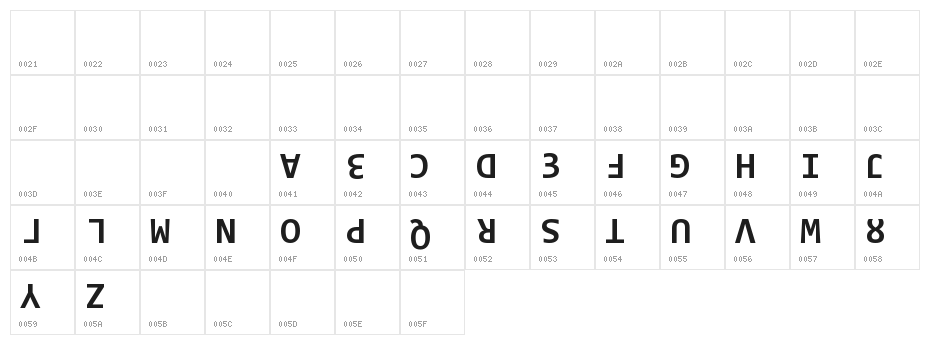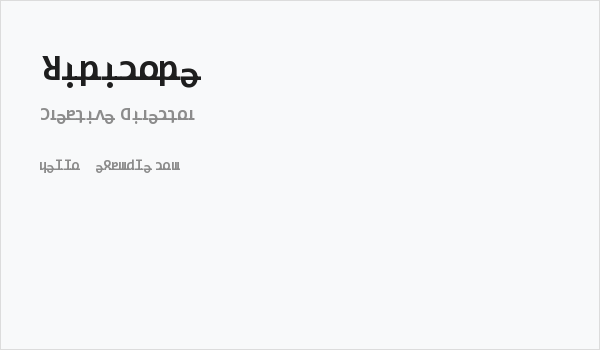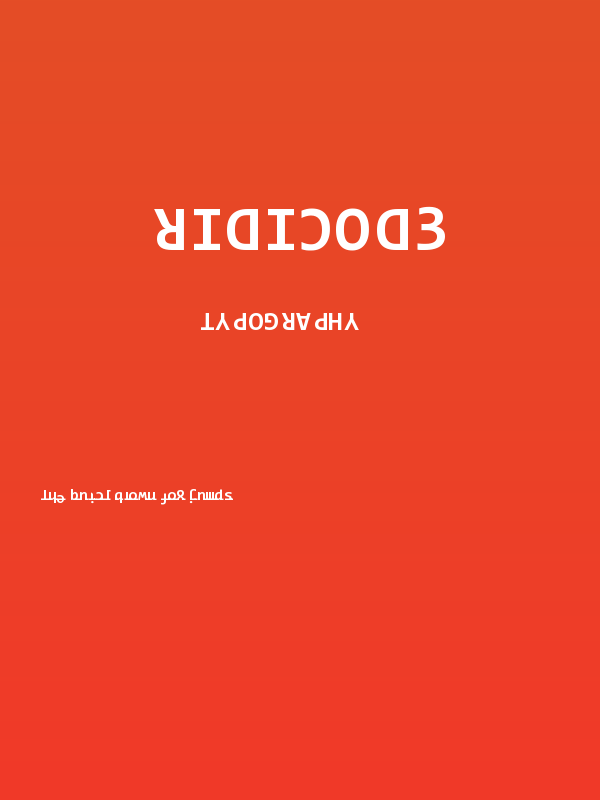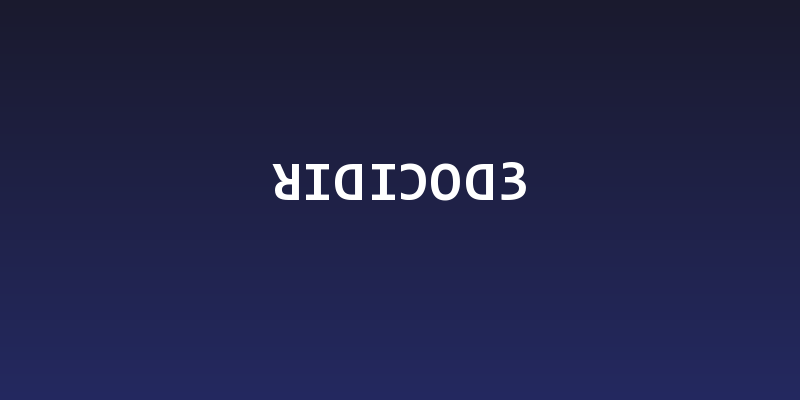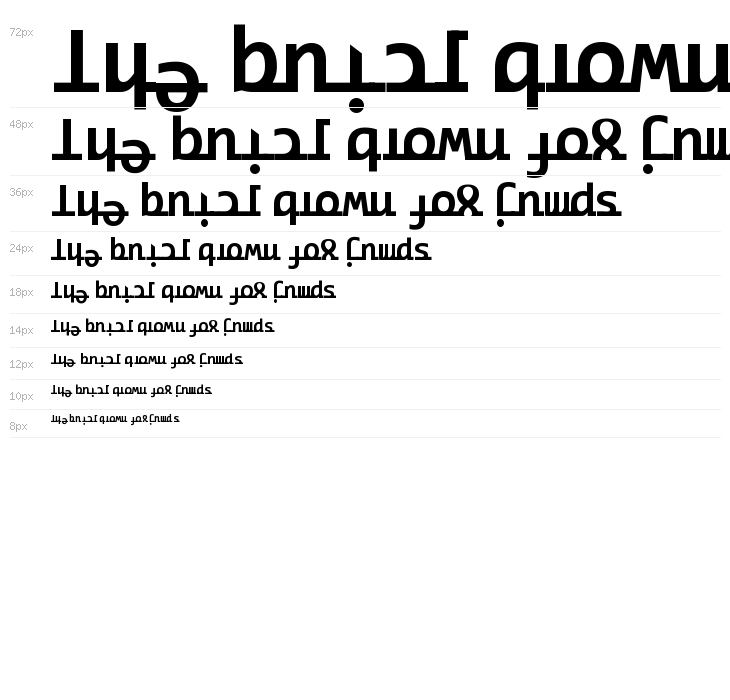
Ridicode Font
Ridicode Description
This font features a bold and modern design with clean, geometric lines and a strong presence. The characters are uniformly structured, offering a consistent and balanced appearance across both uppercase and lowercase letters. The numerals and special characters maintain the same boldness, ensuring readability and impact. The style is straightforward yet striking, making it suitable for a variety of design applications where clarity and emphasis are required.
| Proposed Projects | Ideal for branding, headlines, posters, and digital media where a modern and impactful look is desired. |